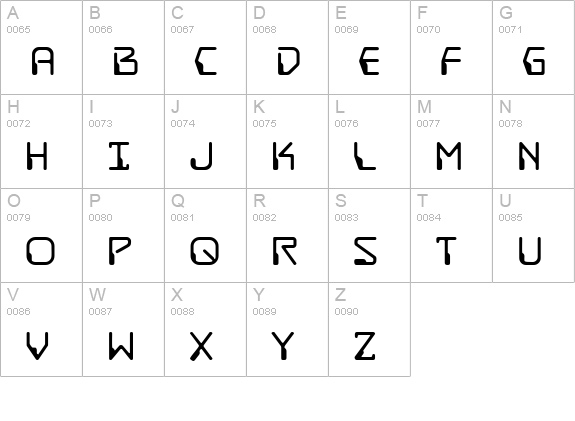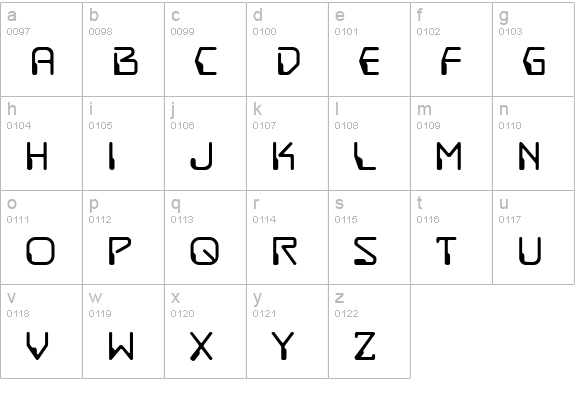
DestructoBeam BB Font Details
DestructoBeam BB font is a bold and dynamic typeface that exudes power and strength. With its sharp edges and futuristic design, it is perfect for creating eye-catching headlines, posters, and branding materials. This font commands attention and makes a statement with its unique style. The best part? DestructoBeam BB font is completely free to download at FontsMarket.com. This means you can add this striking font to your collection without any cost, allowing you to unleash your creativity without limitations. Whether you're designing a sci-fi movie poster or a cutting-edge logo, this font will elevate your projects to the next level. Don't miss out on the opportunity to enhance your designs with DestructoBeam BB font. Download it for free today and let your imagination run wild!